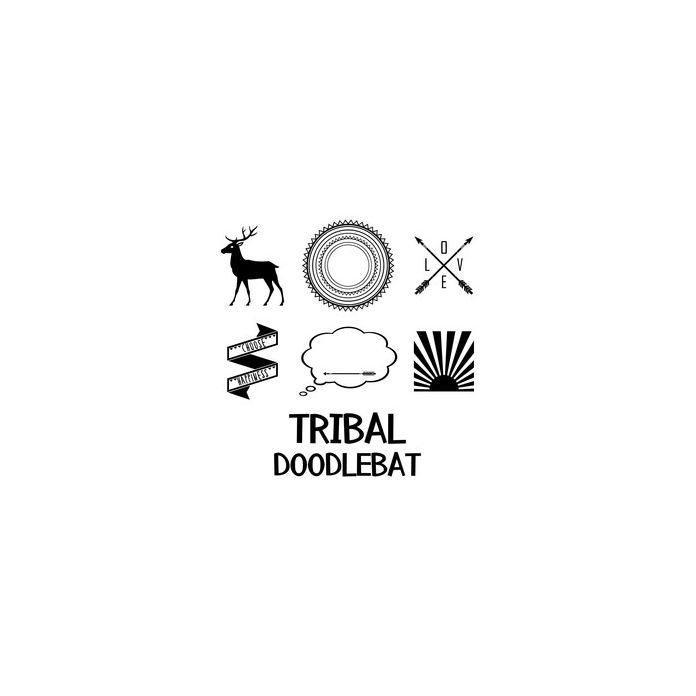
Find the perfect tribal imagery with this doodlebat font. For more doodlebats like this please visit: http://www.letteringdelights.com/lettering/doodlebats-c1c22